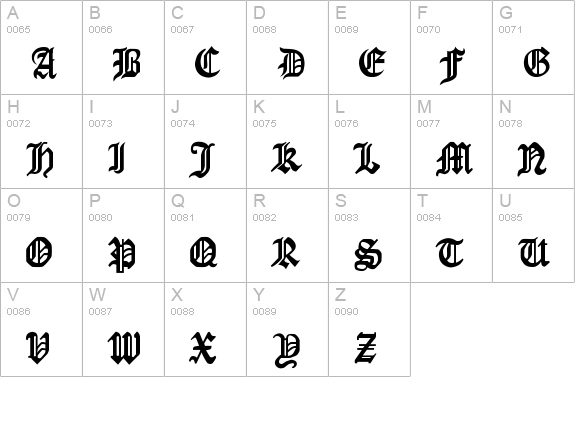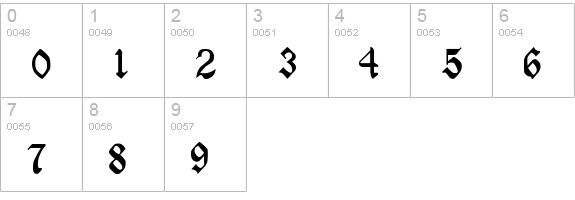
London.fog Font Details
London.fog font is a stunning display typeface that exudes elegance and sophistication. With its clean lines and modern yet timeless design, London.fog is the perfect choice for adding a touch of class to any project. This versatile font is ideal for a wide range of applications, from branding and advertising to social media posts and invitations. What's even better is that London.fog font is available for free download at FontsMarket.com. So you can elevate your designs without breaking the bank. Don't miss out on the opportunity to enhance your projects with this exquisite font. Download London.fog today and let your creativity shine!